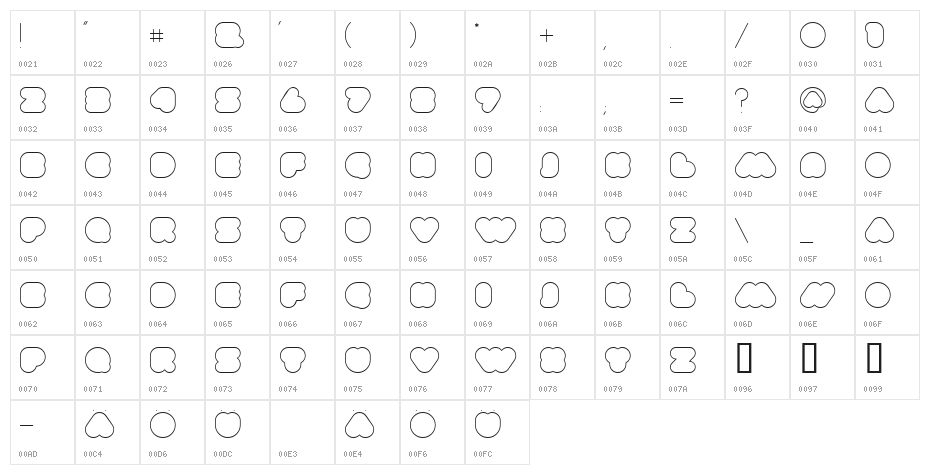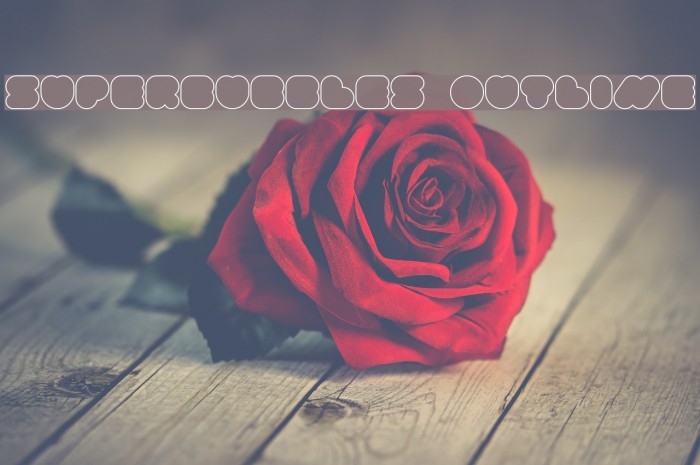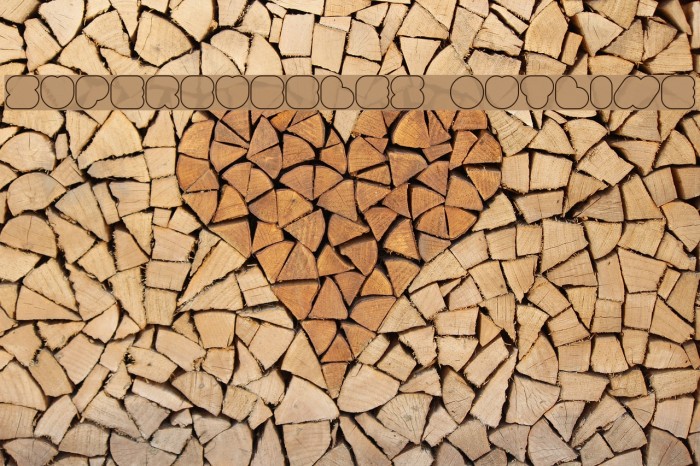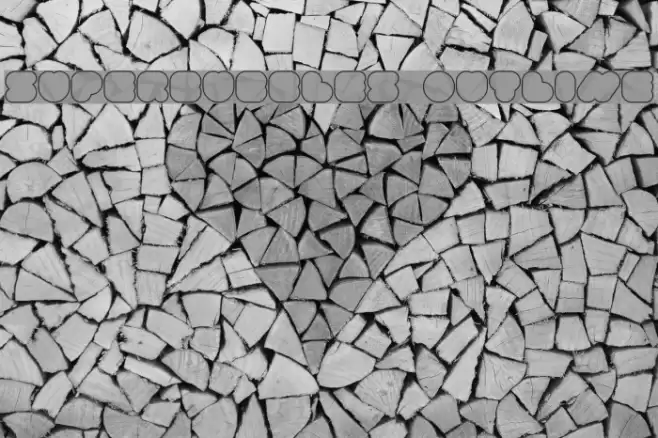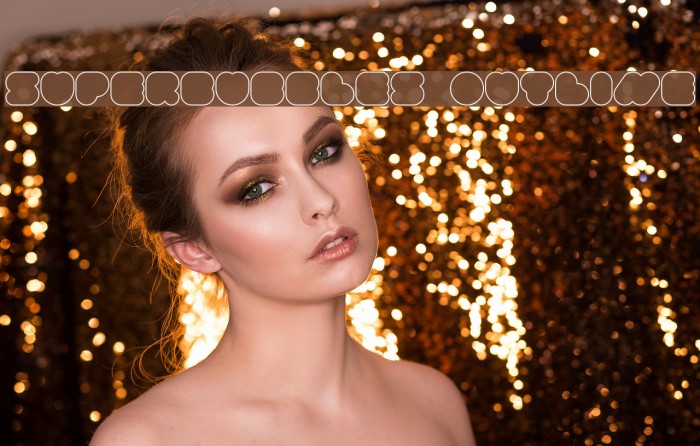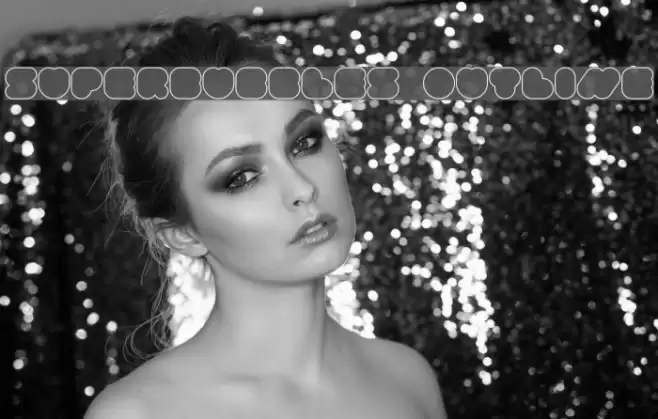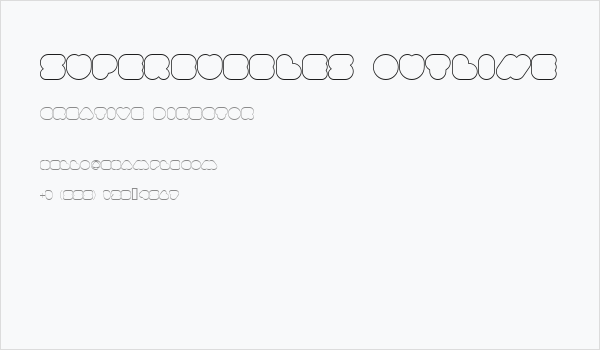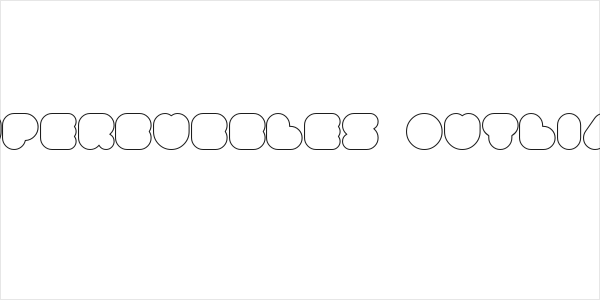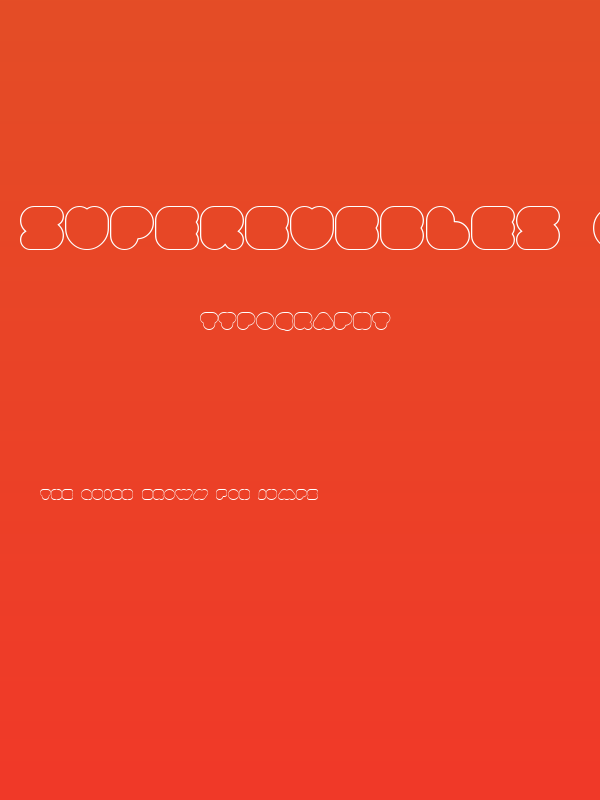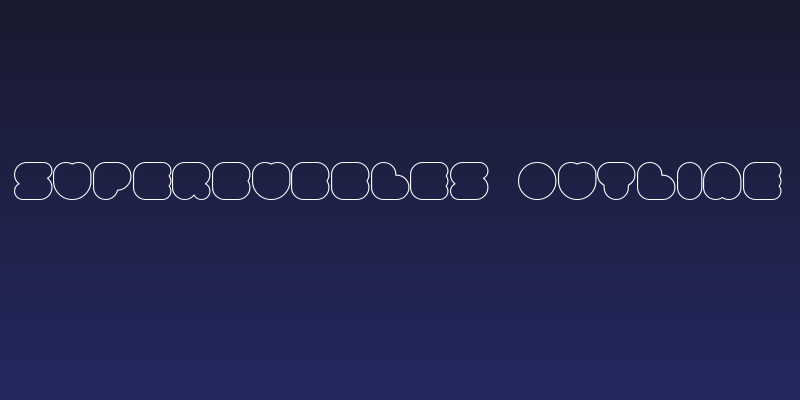
superbubbles Outline Font
superbubbles Outline Description
This playful and whimsical font features bold, rounded outlines that give each character a bubbly and soft appearance. The letters are designed with a consistent thickness, creating a uniform look that is both approachable and fun. The uppercase and lowercase letters maintain a similar style, with the lowercase being slightly smaller but equally rounded. Numbers and special characters follow the same design principles, ensuring a cohesive look across all elements. The font's outline style adds a unique touch, making it stand out while remaining legible. Its playful nature makes it ideal for projects that require a lighthearted and friendly tone.